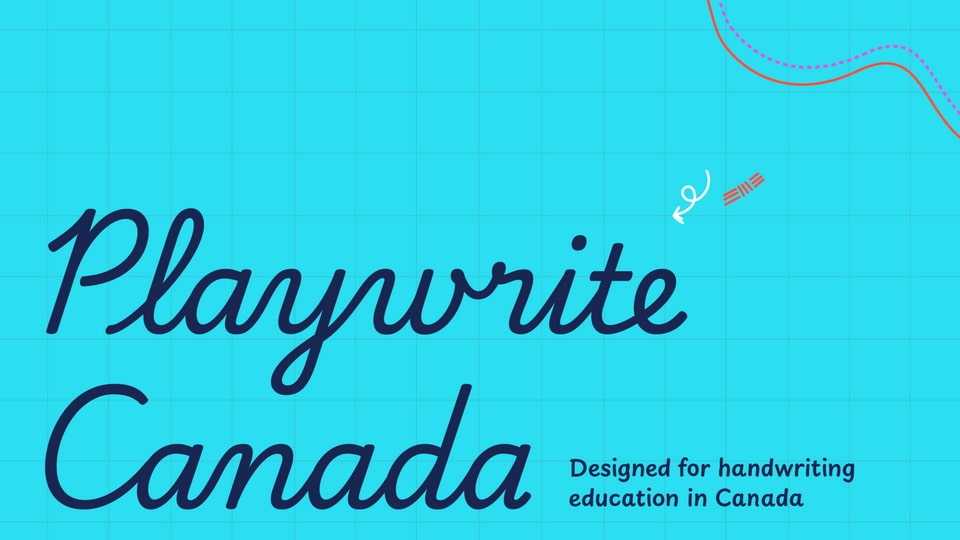
Download Playwrite Canada font, a typeface engine that allows the creation of primary school cursive fonts. This slanted continuous cursive style is influenced by the Zaner-Bloser and D’Nealian models.